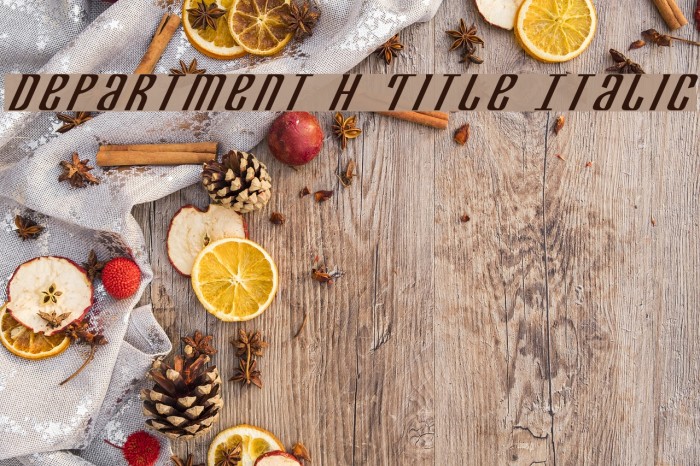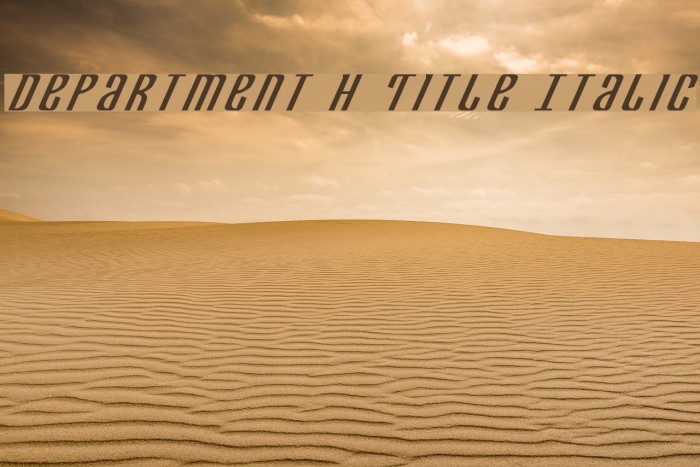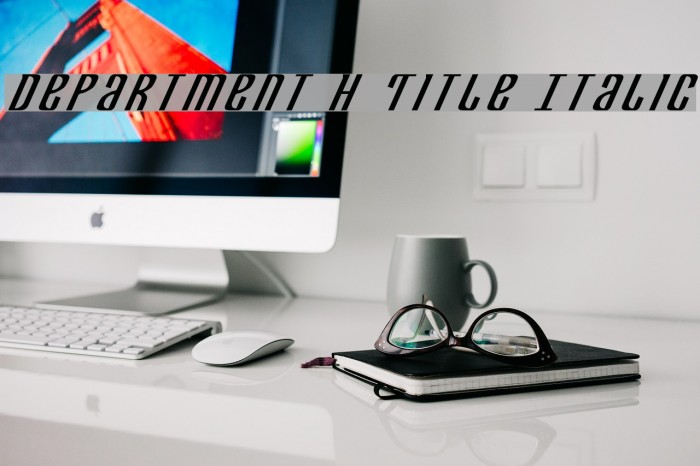
Department H Title Italic Font
This font features a bold and dynamic italic style with a distinct slant, giving it a sense of movement and energy. The characters are elongated with sharp, angular edges, creating a sleek and modern appearance. The uppercase and lowercase letters maintain a consistent slant, enhancing the cohesive look of the typeface. The numerals and special characters follow the same design principles, ensuring uniformity across all elements. The font's boldness is balanced by its narrow width, making it suitable for impactful headlines and titles. Its high contrast between thick and thin strokes adds to its striking visual appeal.
A bold, italic font with a modern, dynamic slant and high contrast strokes.
- Proposed Projects: Ideal for sports branding, dynamic posters, modern advertising, and eye-catching headlines.